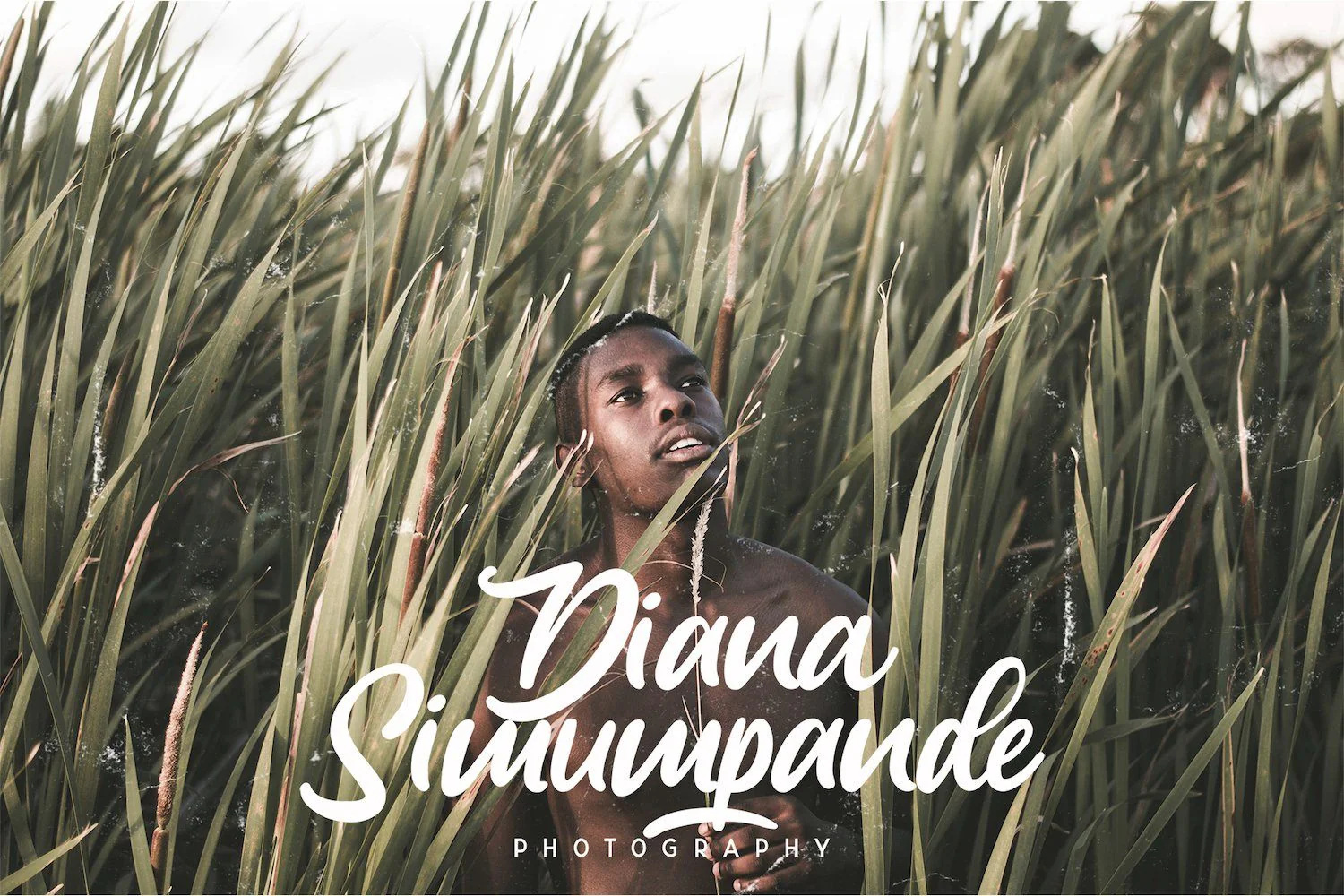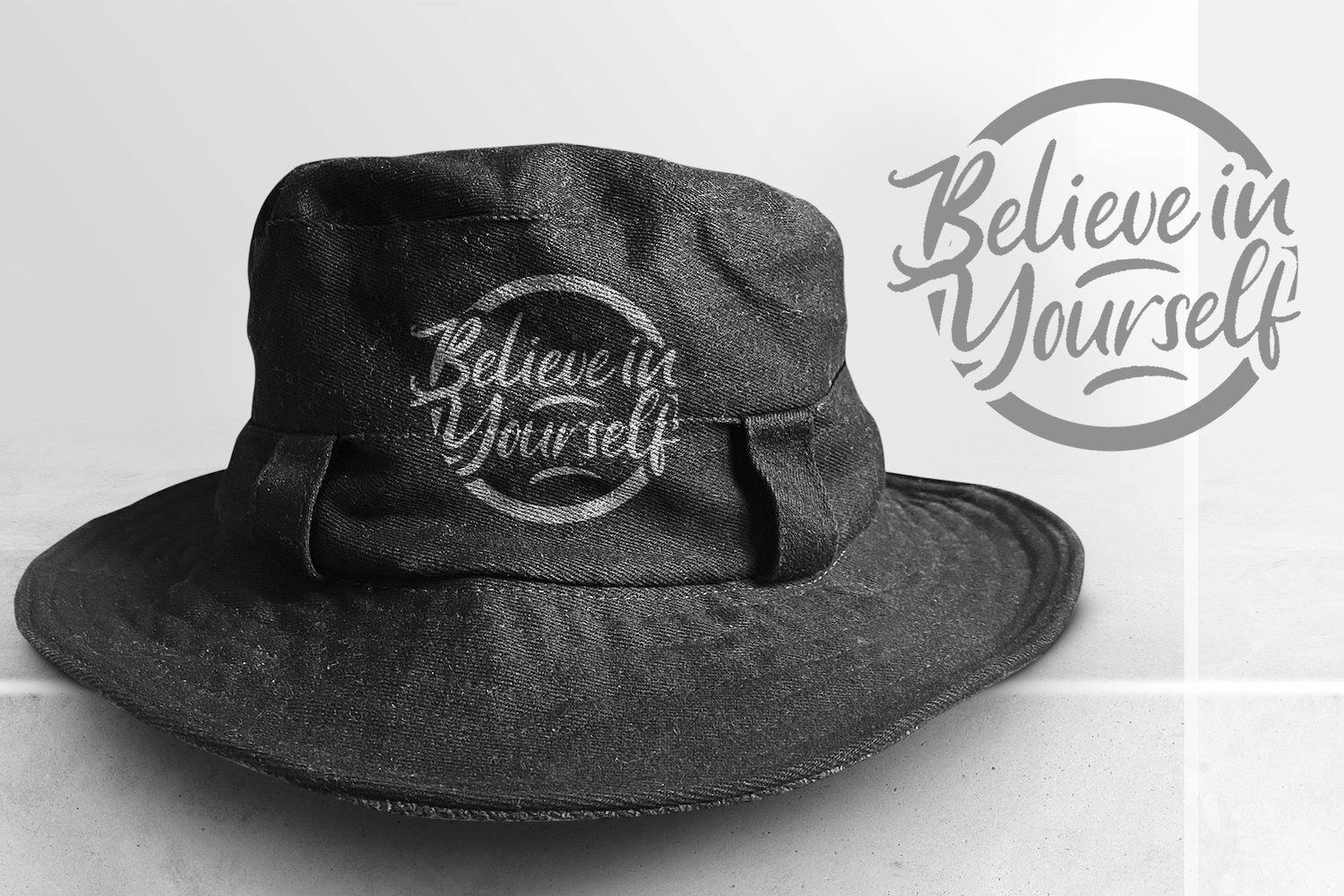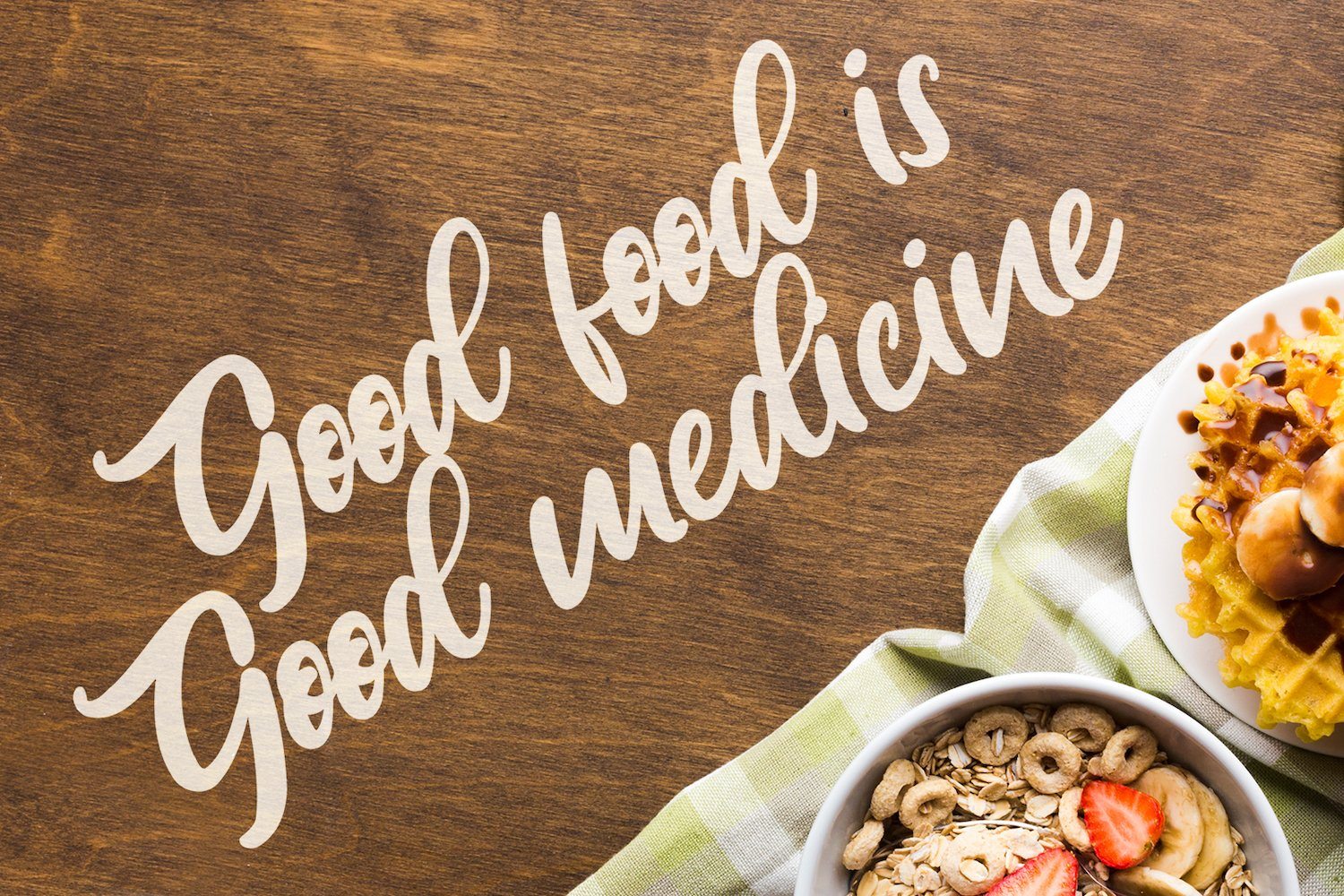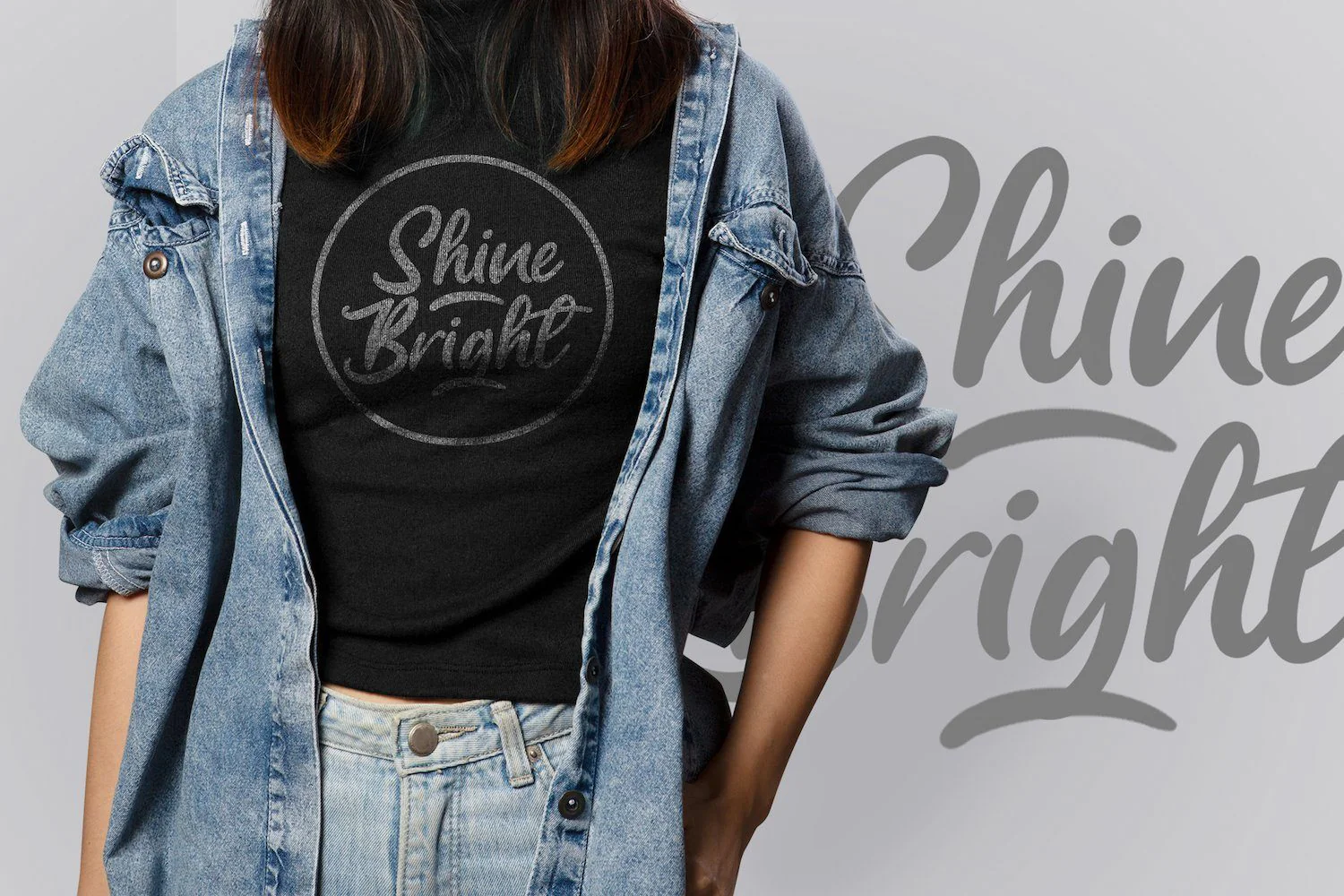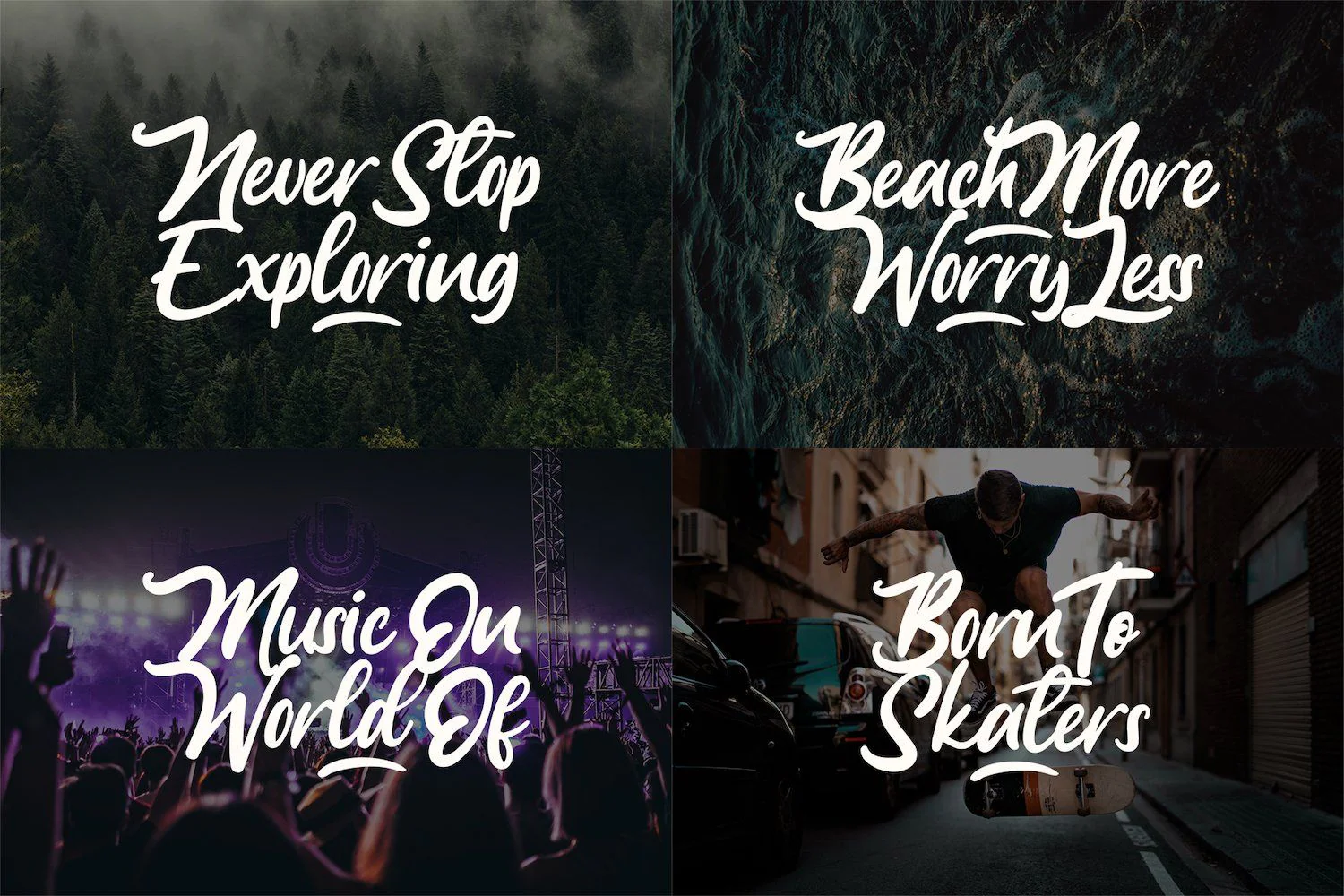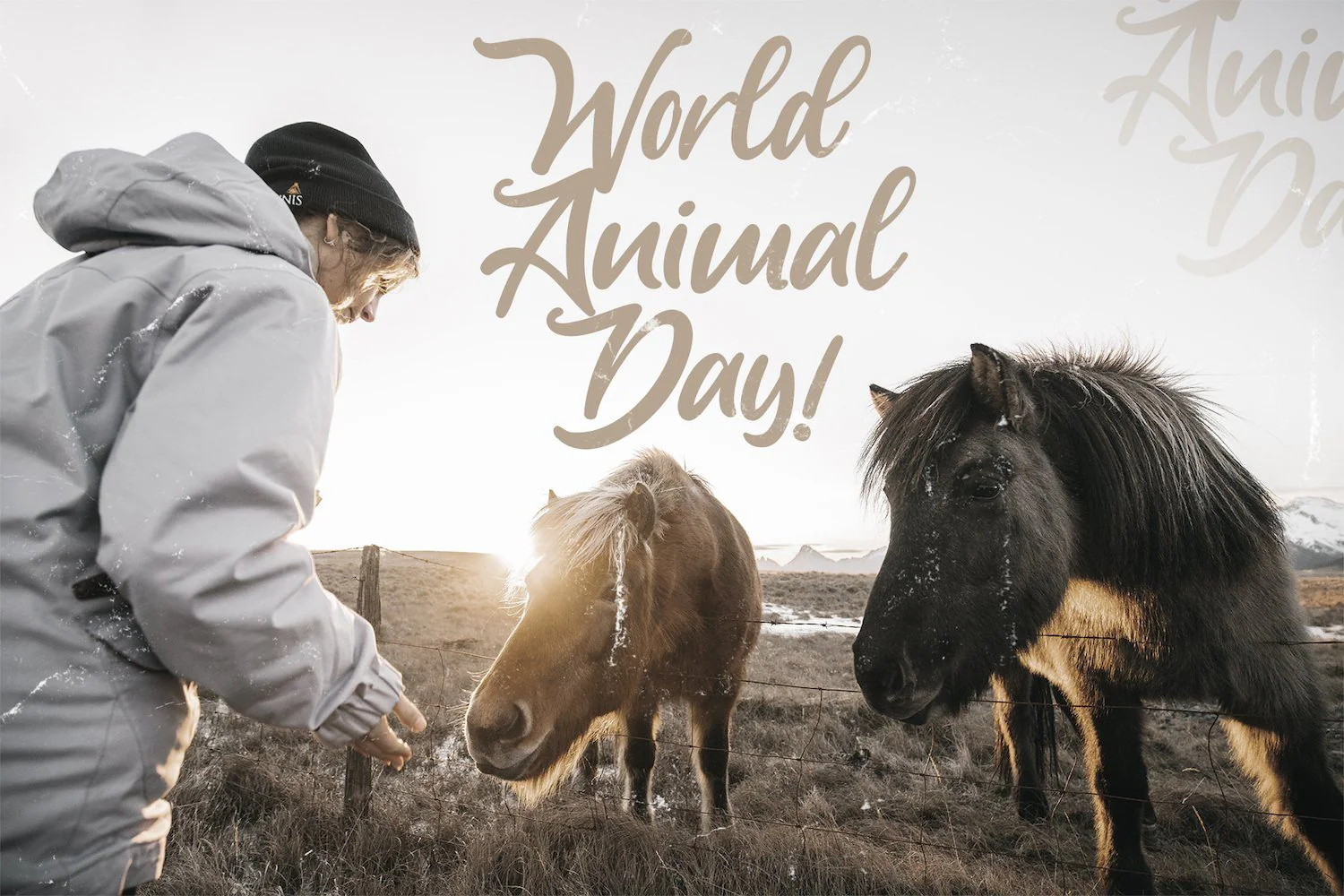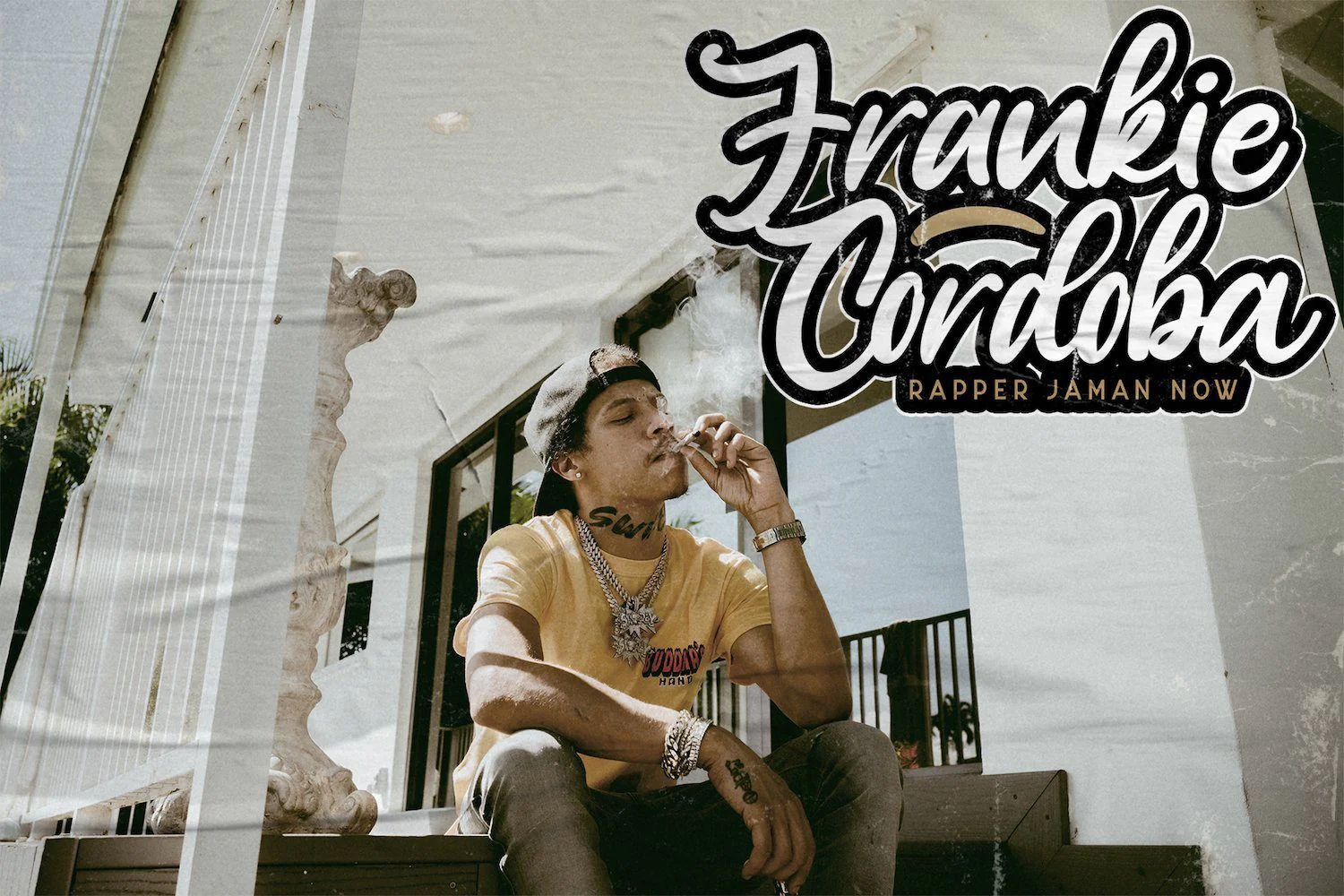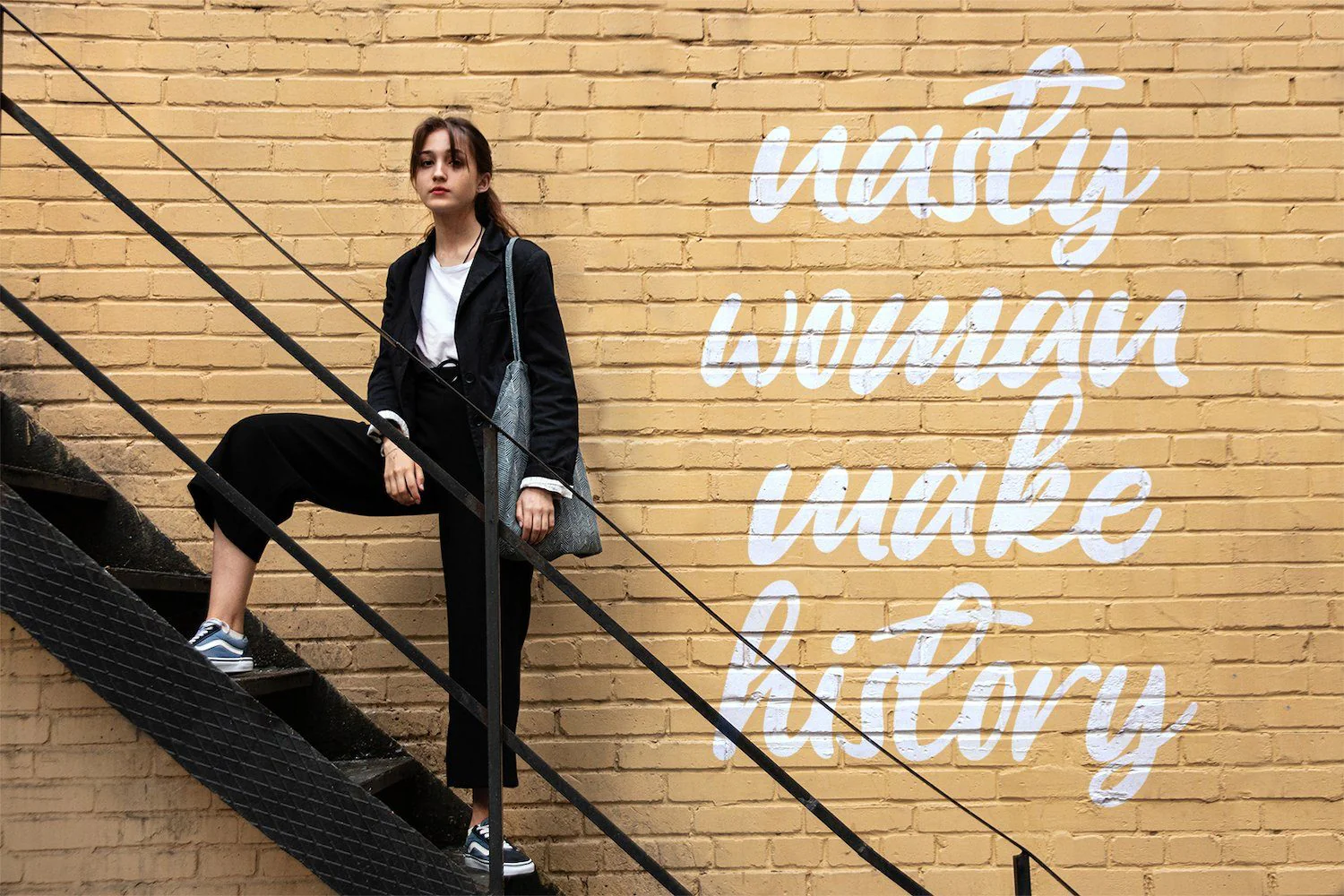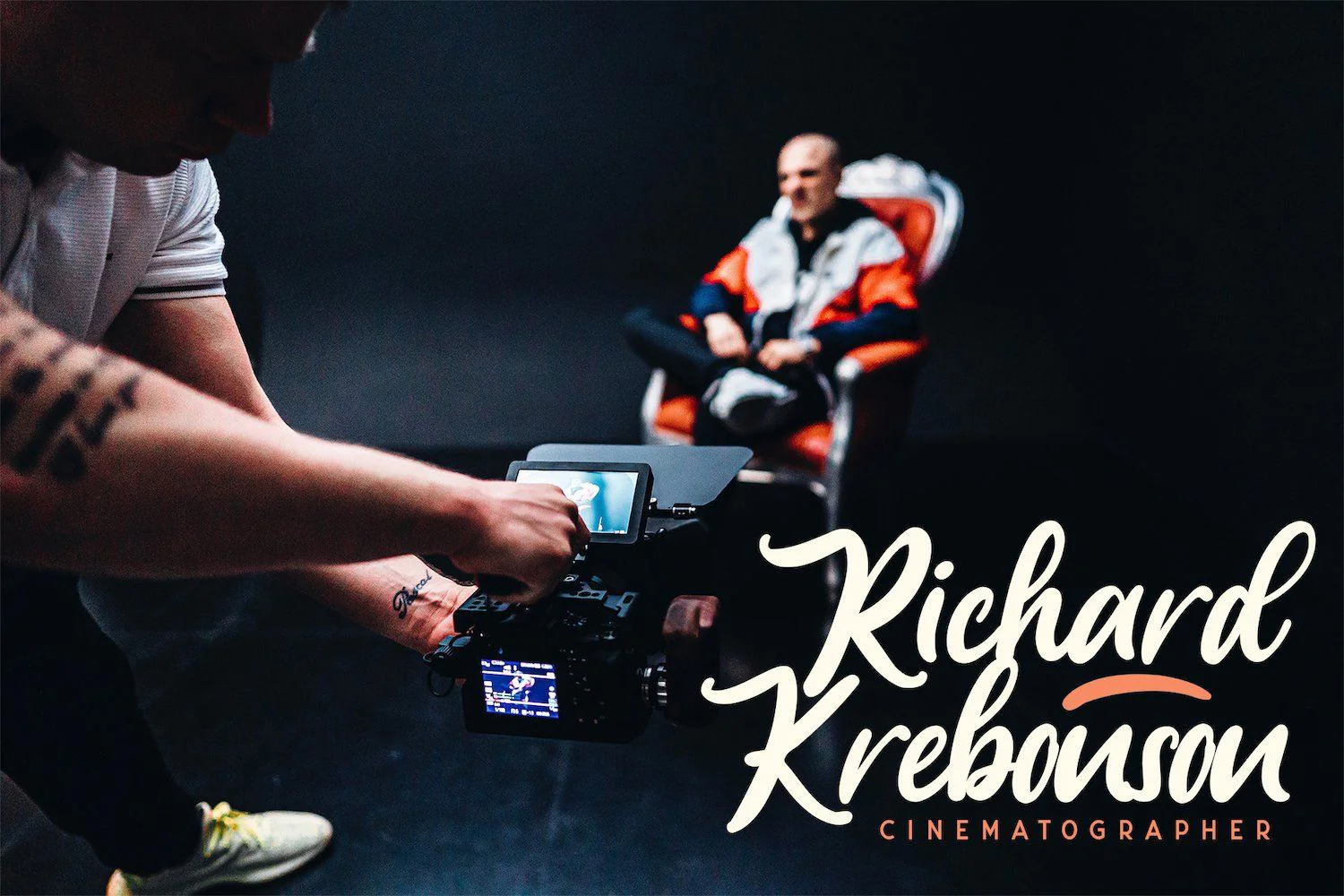
Anjelica Script - Bold Script Font
Introducing Anjelica Script - Bold Script Font
The Anjelica Script is a strong and bold script font. It’s curved and rounded in every single touch, and has an unique vintage and retro styles that’s perfect for branding.
Introducing Anjelica Script - Bold Script Font
The Anjelica Script is a strong and bold script font. It’s curved and rounded in every single touch, and has an unique vintage and retro styles that’s perfect for branding.